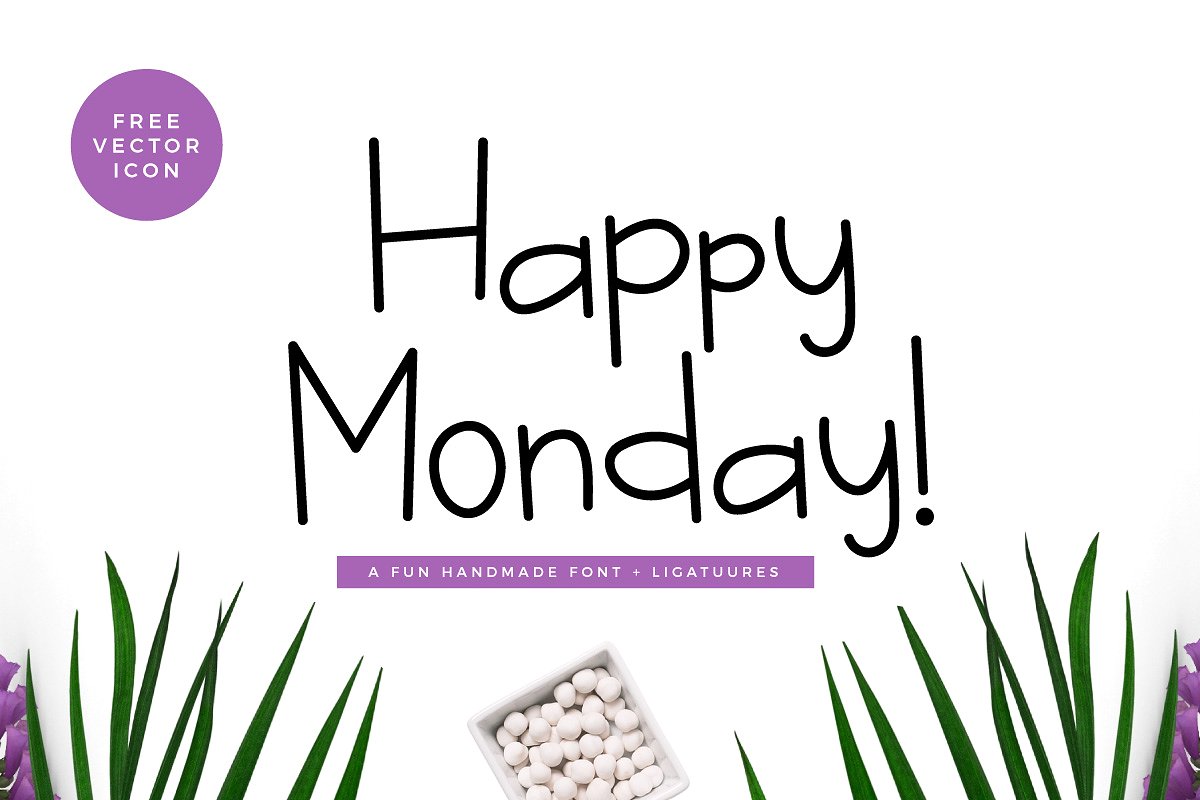
Happy Monday Script
Happy Monday Script Font
Happy Monday is a hand written font . Very cool for logos, name tag, handwritten quotes, product packaging, merchandise, social media & greeting cards. And very easy to make design t-shirts and other products. Very save time in making the design of a product. It contains a full set of lower & uppercase letters, a large range of punctuation, numerals, and multilingual support.